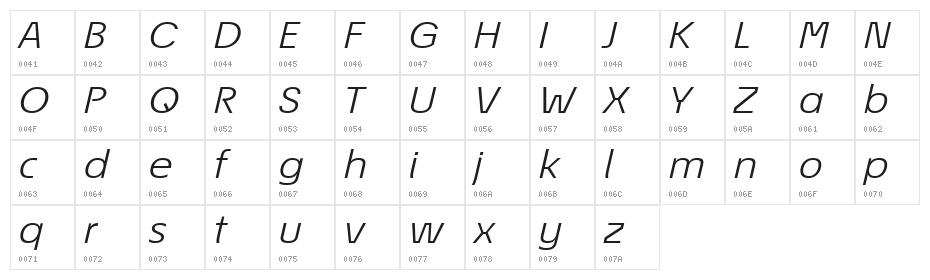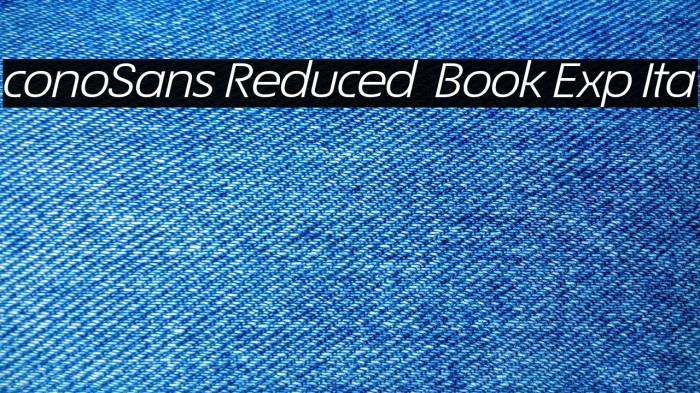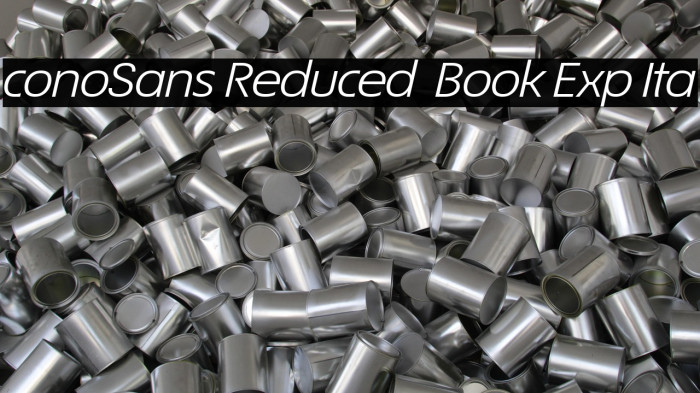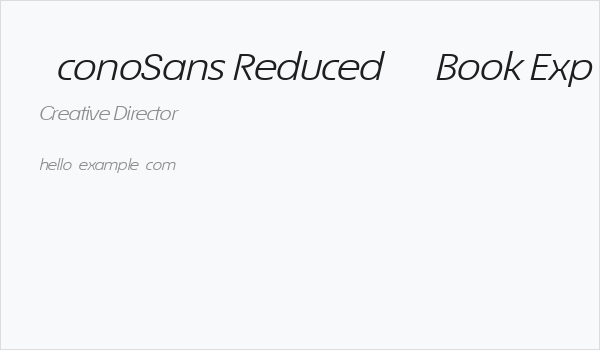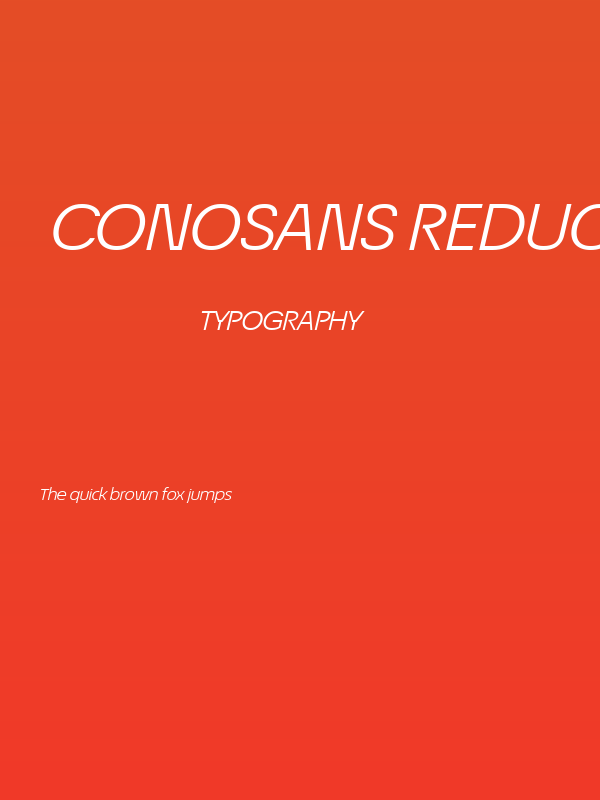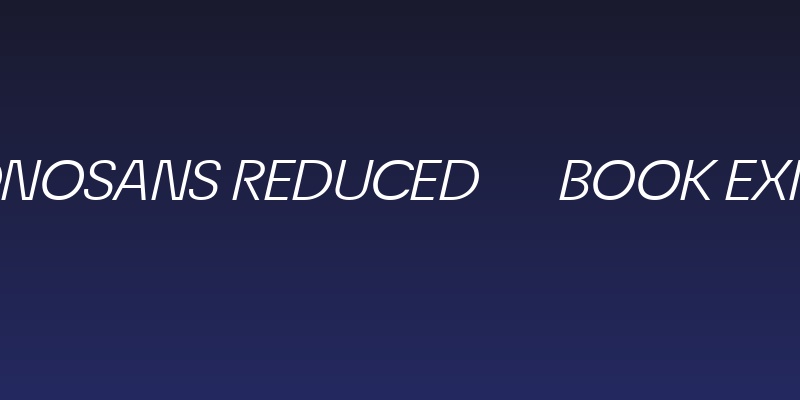
ÉconoSans Reduced 54 Book Exp Ita Font
ÉconoSans Reduced 54 Book Exp Ita Description
This font features a clean and modern sans-serif style with a slightly expanded width. The characters are designed with a sleek and contemporary look, emphasizing clarity and readability. The italicized form adds a dynamic and forward-leaning appearance, making it suitable for a variety of design contexts. The uniform stroke width ensures a consistent visual flow, while the slightly rounded edges soften the overall aesthetic, providing a friendly yet professional feel. This font is versatile, making it ideal for both digital and print media.
| Proposed Projects | Ideal for branding, advertising, web design, and editorial layouts. |